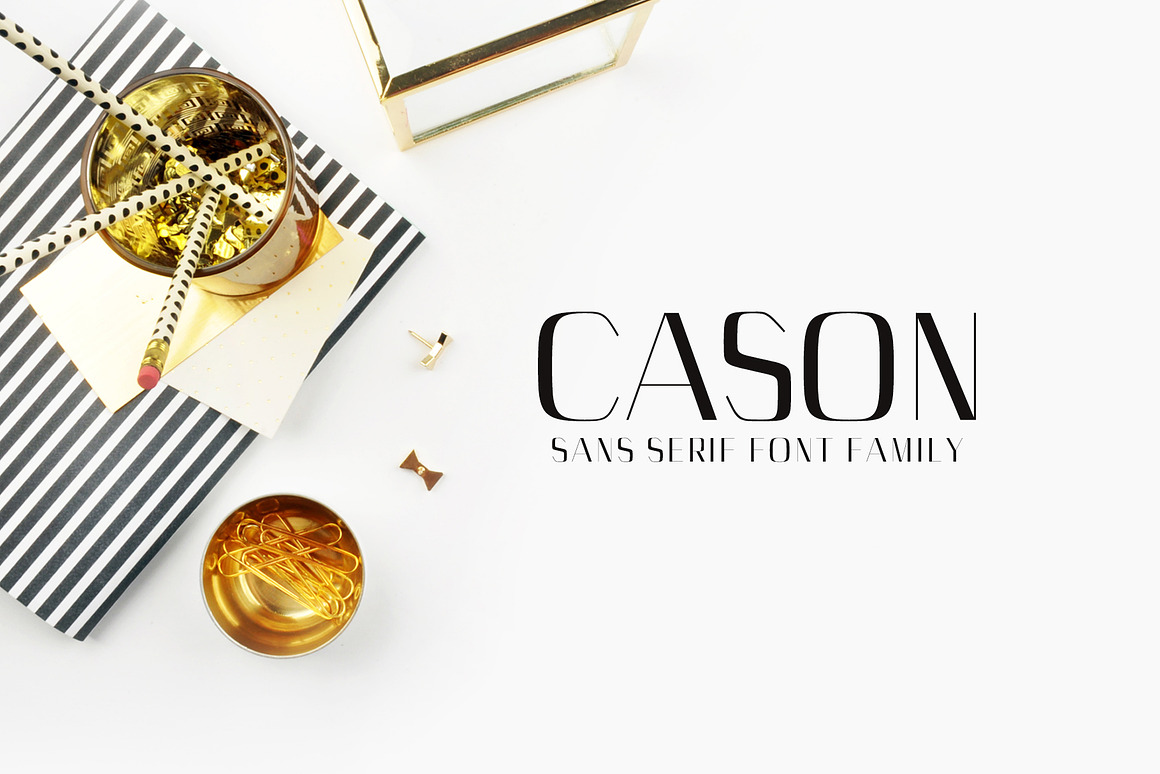
Cason Sans Serif 5 Font Family
This modern sans serif typeface family is perfect for tech startups, minimalist branding, corporate websites, mobile app interfaces, clean presentations, contemporary signage systems, digital magazines, and professional marketing materials. Cason Sans Serif 5 Font Family delivers outstanding clarity and visual impact in applications where modern simplicity and functional elegance are essential.
What makes Cason Sans Serif 5 Font Family so exciting is its perfect balance of geometric precision and humanistic warmth. The font features clean, streamlined letterforms with subtle character nuances that prevent sterility while maintaining professional appeal. Each glyph has been expertly crafted to ensure optimal screen rendering and print quality across all sizes and applications. The family's versatile nature allows it to adapt seamlessly from corporate environments to creative projects, making it an invaluable asset for designers seeking typography that communicates both reliability and innovation.
The Cason Sans Serif 5 Font Family includes five comprehensive weights: Light, Regular, Medium, Semi-Bold, and Bold. This well-balanced collection provides designers with complete typographic flexibility to establish clear information hierarchies and create cohesive brand systems. Each weight maintains the family's core characteristics of clarity and modernity while offering distinct visual presence for different communication needs and design applications.
This comprehensive sans serif family represents the gold standard of contemporary typography for businesses embracing digital transformation and modern design principles.